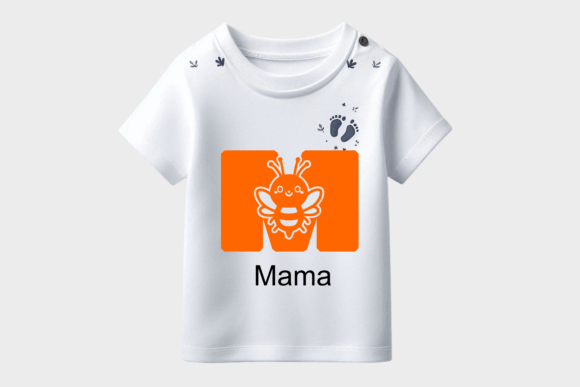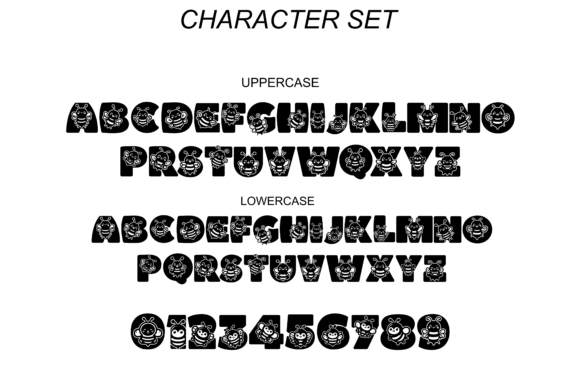
Unleash the Artistic Enchantment of Bee Font: A Creative Revolution in Typography
Welcome to the captivating realm of Bee Font, where artistry and innovation converge to redefine the boundaries of typographic expression. This meticulously curated font is not just a typeface, but a creative instrument engineered to invigorate your masterpieces and spur innovation with every stroke. As a designer or crafter, you’re likely always on the lookout for fresh inspiration and unique visual elements to elevate your work. That’s where Bee Font comes in – a bewitching amalgamation of meticulous exactness and exciting unpredictability that will add an unbridled allure to your inventive pursuits.
The Unique Character Traits of Bee Font
Bee Font is an entrancing typographic spectacle that symbolizes unbridled ingenuity. Its lively individuality is intelligently woven to magnify the allure of your artful ventures, infusing your creations with an unmatched visual resonance inherent to this font. With Bee Font, you’ll discover a character that is both precise and playful, making it the perfect companion for your creative journey. Whether you’re working on a graphic design project, crafting a handmade piece, or simply looking to add some personality to your digital content, Bee Font is sure to leave a lasting impression.
Experience the Artistic Enchantment of Bee Font
As you dive into the world of Bee Font, you’ll experience a new realm of artistic enchantment that will transform the way you approach typography. This font invites you to explore its unique character traits, from the subtle nuances of its letterforms to the bold statements it makes on the page. With Bee Font, you’ll be able to:
- Add a touch of whimsy to your designs with its playful, hand-crafted feel
- Convey complex emotions and ideas with its precise, elegant lines
- Elevate your brand or personal style with its distinctive, recognizable aesthetic
Bee Font is more than just a typeface – it’s a creative partner that will help you bring your vision to life. Its versatility and expressiveness make it an ideal choice for a wide range of applications, from branding and advertising to crafting and DIY projects.
The Benefits of Using Bee Font
So why choose Bee Font for your next creative project? Here are just a few benefits you can expect:
- Unmatched visual resonance: Bee Font’s unique character traits and meticulous attention to detail ensure that your creations will stand out from the crowd.
- Innovative spirit: With Bee Font, you’ll be able to push the boundaries of typographic expression and explore new ways to communicate your ideas.
- Creative freedom: This font is designed to be flexible and adaptable, giving you the freedom to experiment and try new things.
Whether you’re a seasoned designer or a crafty DIY enthusiast, Bee Font is the perfect choice for anyone looking to add a touch of artistic enchantment to their work.
In conclusion, Bee Font is a game-changing typographic experience that will revolutionize the way you approach creative projects. With its unique character traits, innovative spirit, and unmatched visual resonance, this font is sure to captivate designers, crafters, and anyone looking to add a touch of artistic enchantment to their work. So why wait? Dive into the world of Bee Font today and discover a new realm of creative possibility.